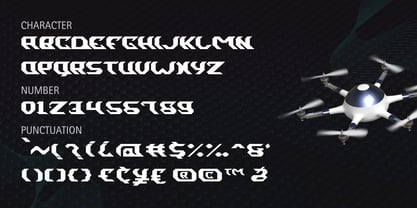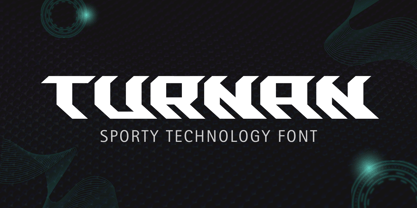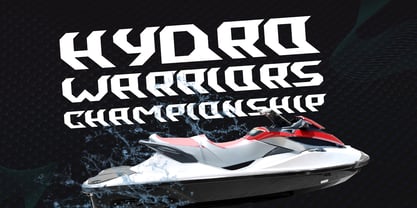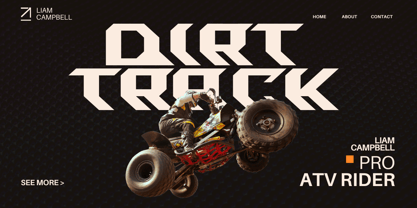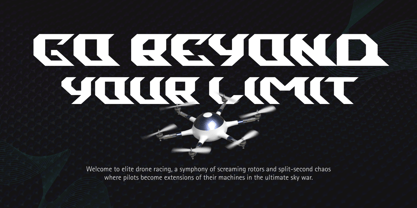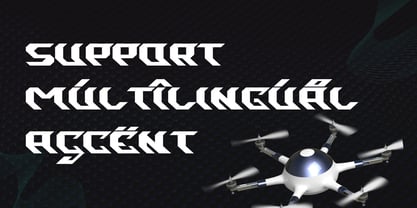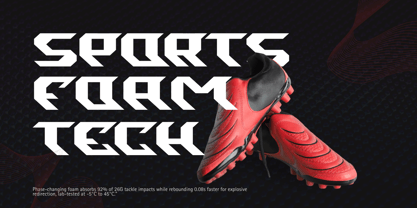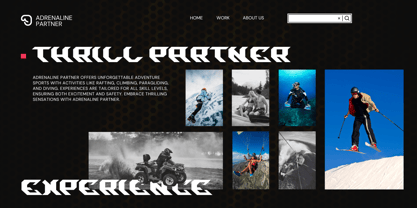
Turnan
by Attype Studio
Turnan is a bold and futuristic sporty technology font designed to deliver impact, energy, and movement. Inspired by digital speed, athletic dynamism, and industrial precision, Turnan brings a high-tech edge to your branding.
Its sharp angles, geometric structure, and tech forward appearance make it ideal for sportswear, automotive branding, gaming, drone tech, and innovation themed visuals.
Turnan includes uppercase letters, numerals, and a broad range of punctuation to support your creative layout needs.
Whether you're promoting smart sports gear, creating esports visuals, or showcasing futuristic concepts, Turnan will elevate your message with bold style and cutting-edge attitude.
Sports brand logos & packaging, Techwear or activewear promotions, Game UI and esports graphics, Drone & gadget advertising, Futuristic poster designs, Sci-fi or speed-themed typography
- Multilingual, US Roman, Latin 1 Support